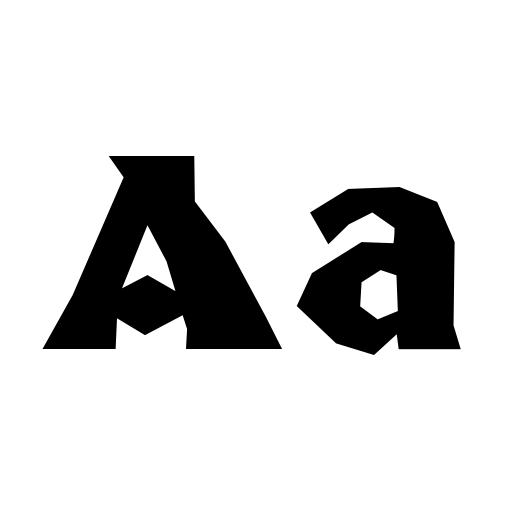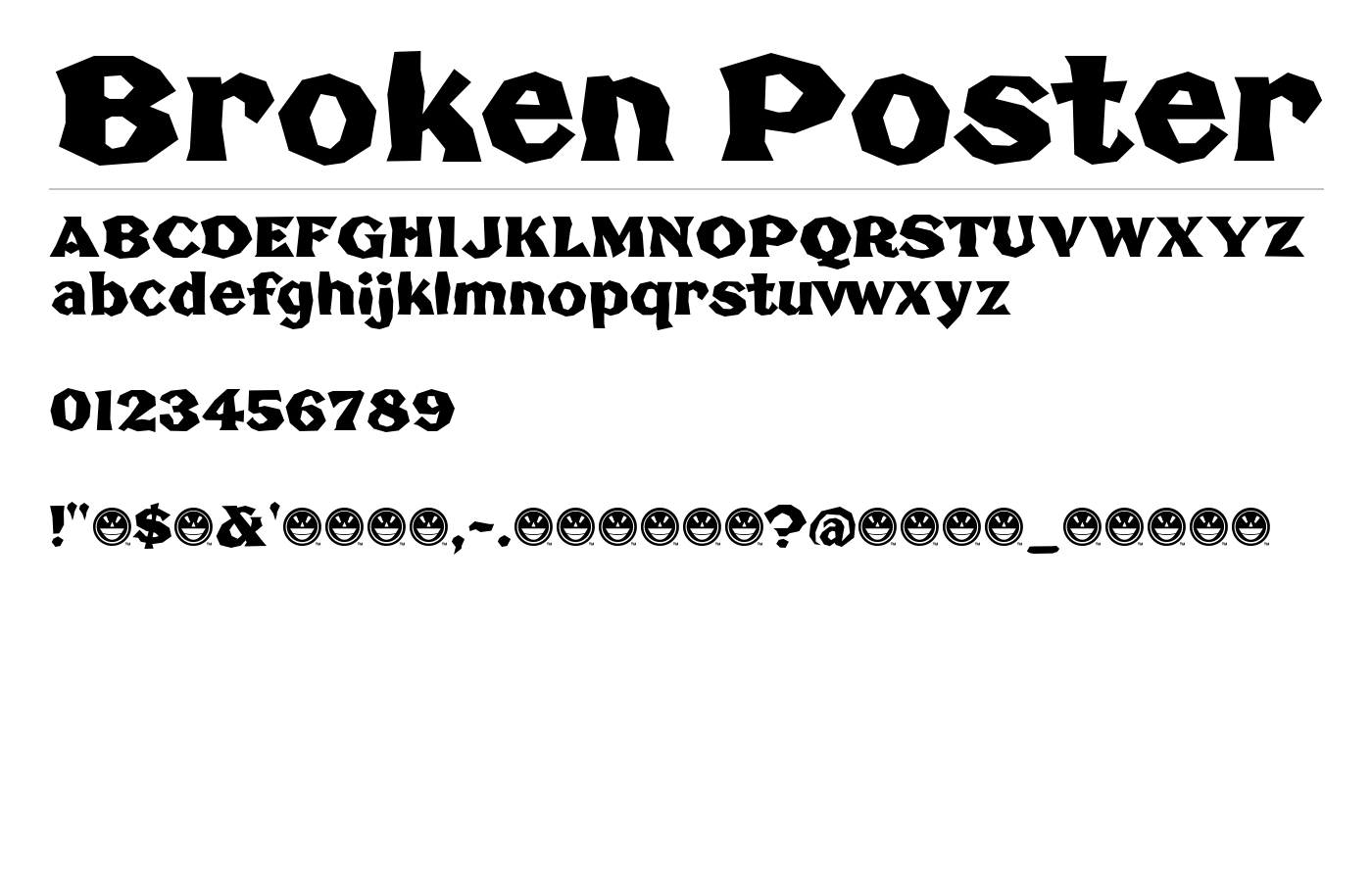
Broken Poster is a bold, irregular serif font with a unique, jagged style that evokes a hand-cut or distressed aesthetic. Its uneven letterforms and strong weight make it ideal for eye-catching headlines and designs with a vintage or edgy feel. This font works great for posters, logos, and branding that aim to stand out with a raw, artistic vibe.
Broken Poster Font
About Broken Poster Font